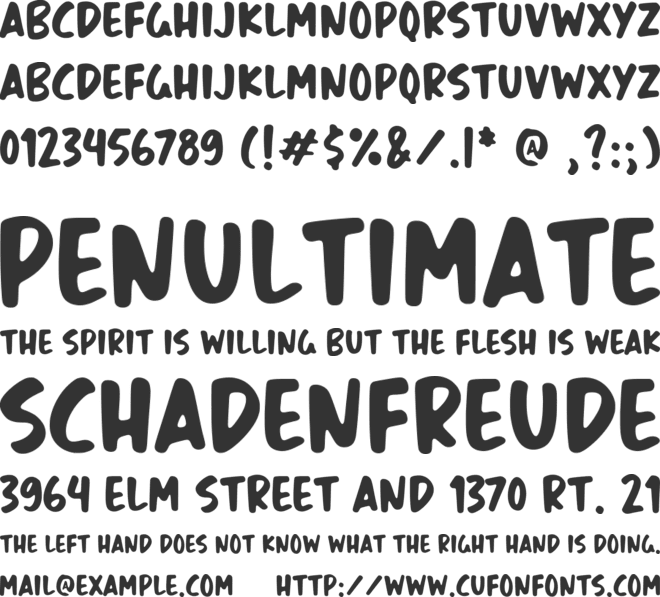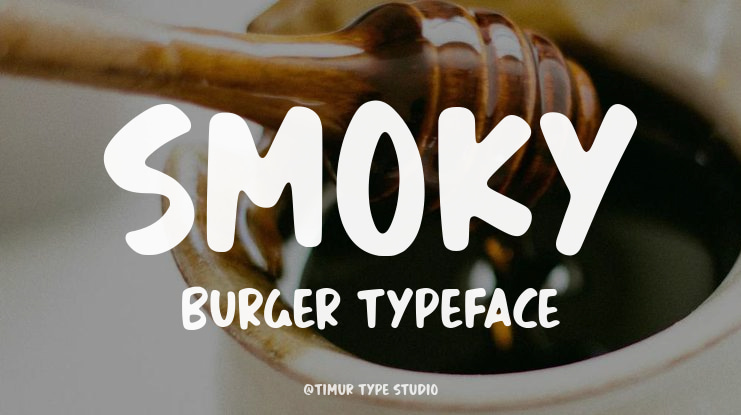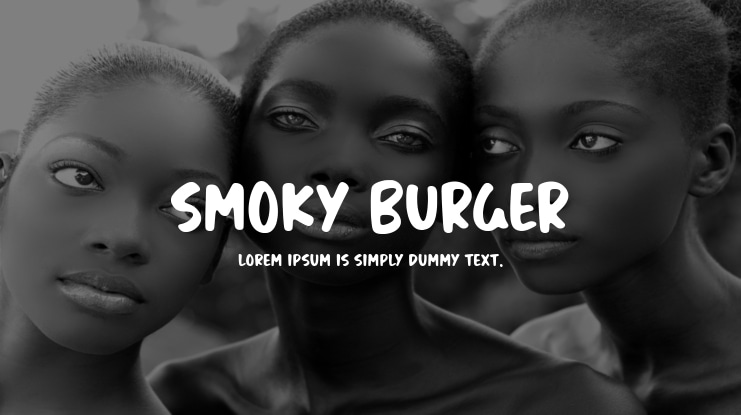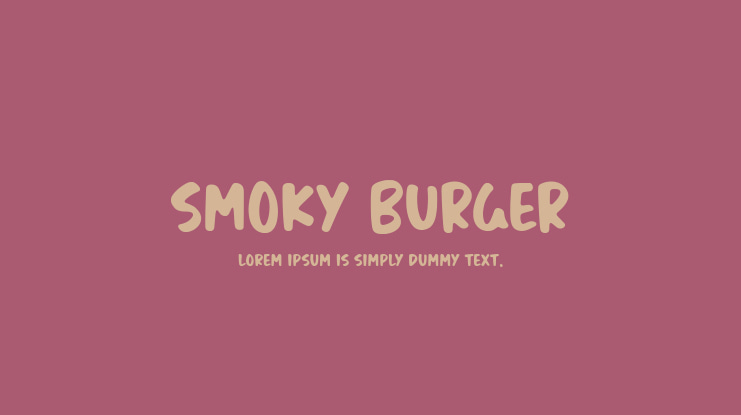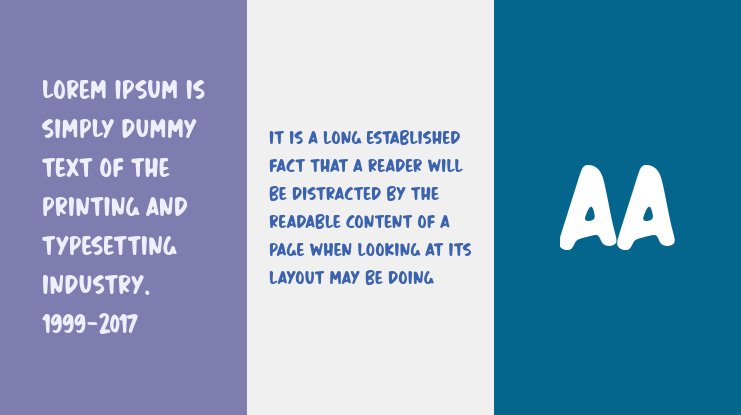
Smoky Burger is a Display Handwriting Font
This font is a bold and flavorful choice for your design projects. With its handcrafted and dynamic letterforms, this font captures the essence of casual and inviting handwriting. The playful curves and varying stroke widths give the Smoky Burger font a friendly and laid-back aesthetic, making it perfect for menus, food packaging, and signage. Whether you're aiming for a retro diner vibe or a modern artisanal feel, the Smoky Burger font offers versatility. Embrace the inviting energy of the Smoky Burger display handwriting font and add a touch of charm and warmth to your designs, evoking the casual and delicious appeal of a juicy burger joint.
Smoky Burger Font also supports multilingualism
Smoky Burger Font features premium :
-Full Set of standard alphabet and punctuation